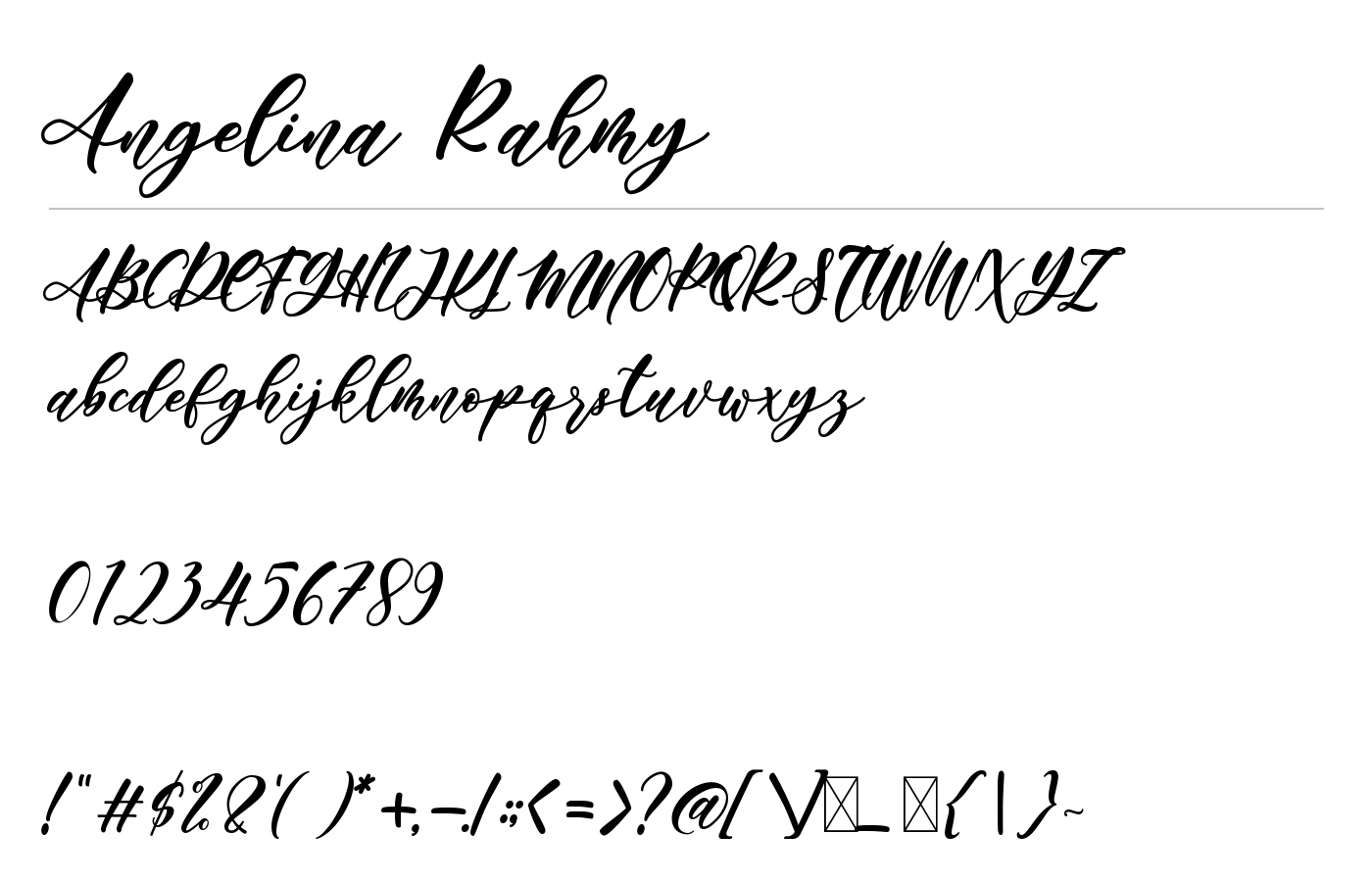
Angelina Rahmy is a graceful script font that combines elegance with a lively, handwritten feel. Its smooth, flowing letterforms and moderate stroke contrast give it a stylish and personal touch, making it perfect for wedding invitations, branding, and feminine design projects. This font’s refined yet approachable style works well for headlines and decorative text where a chic, artistic impression is desired.
Angelina Rahmy Font
About Angelina Rahmy Font